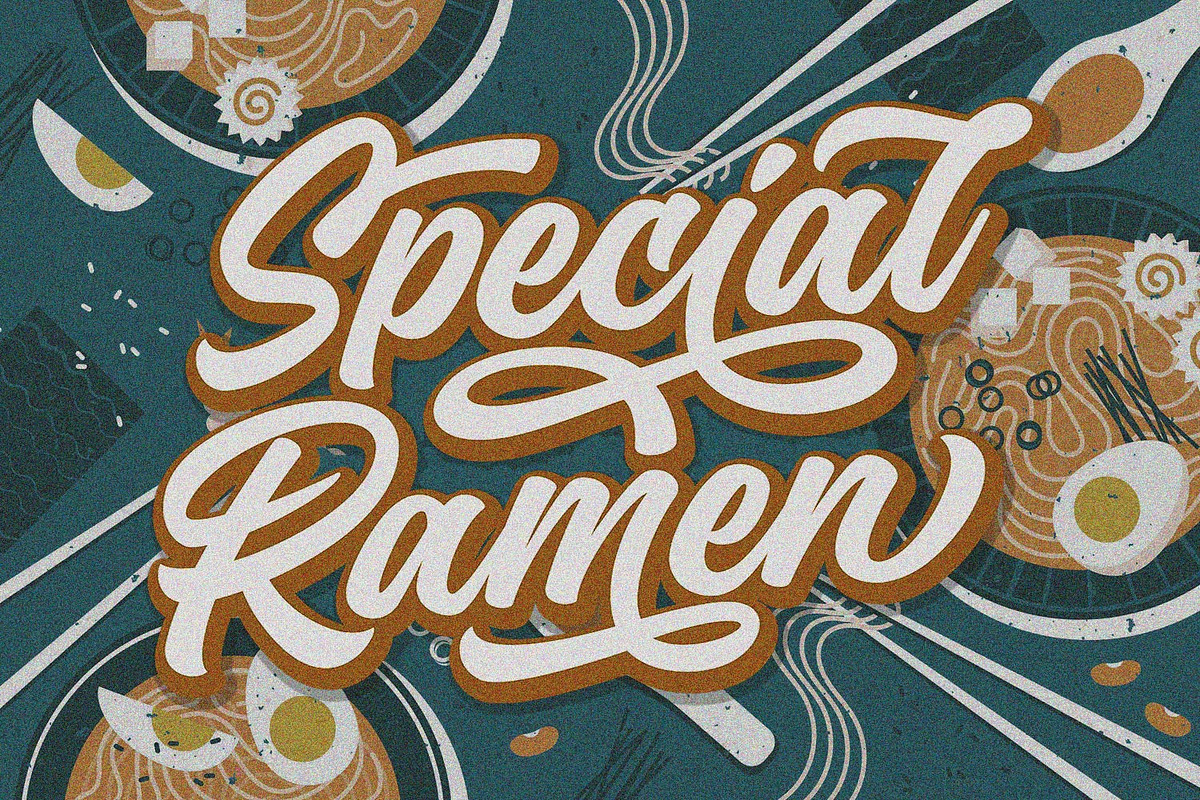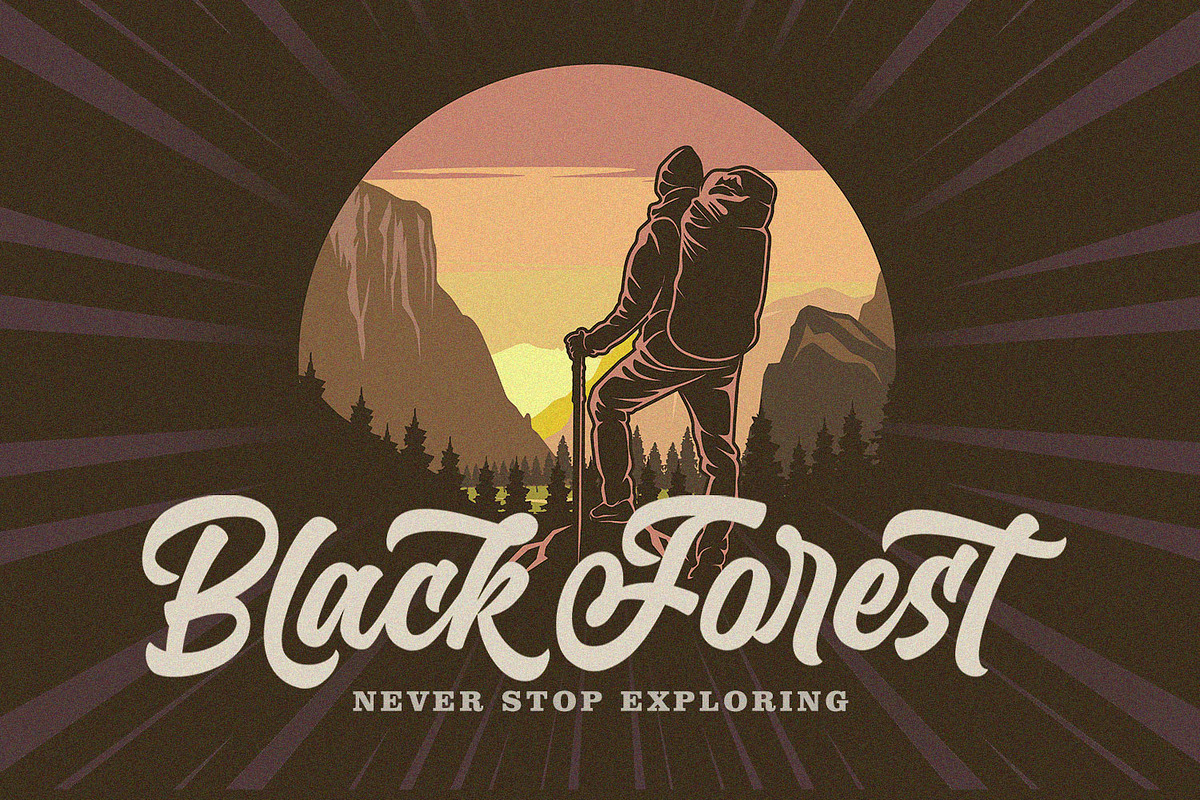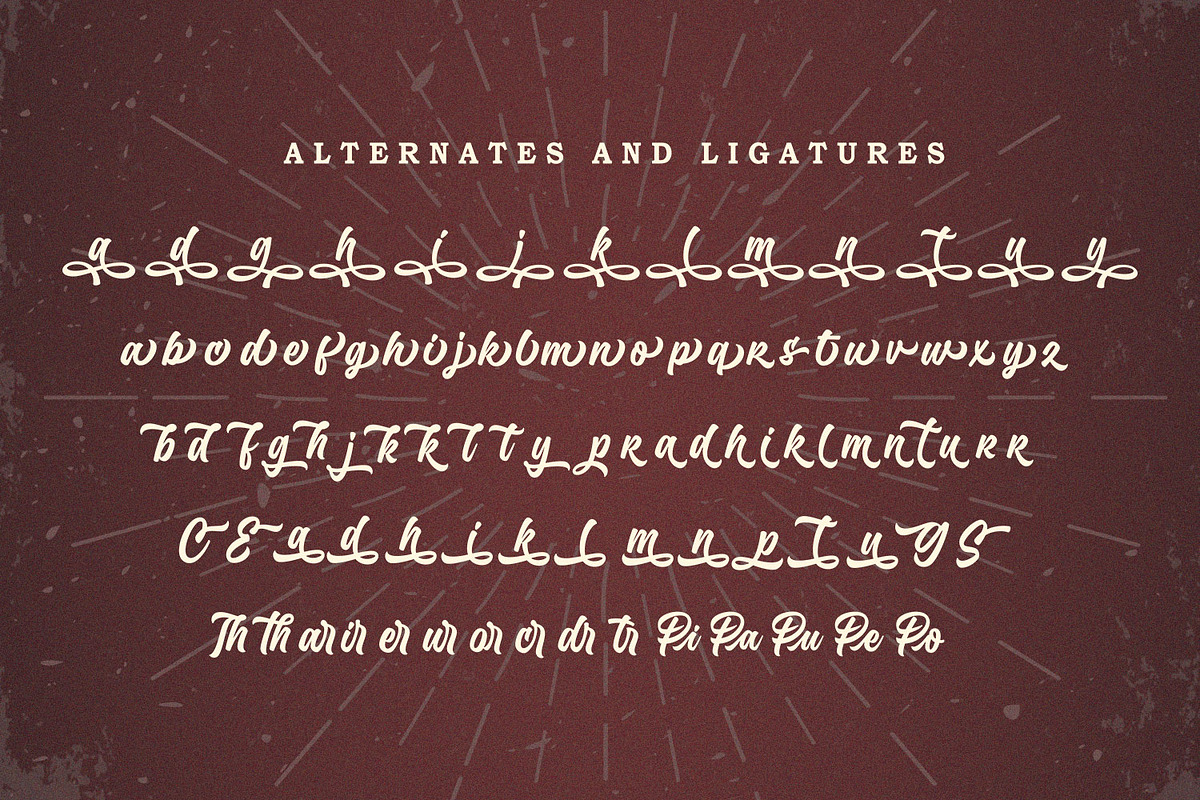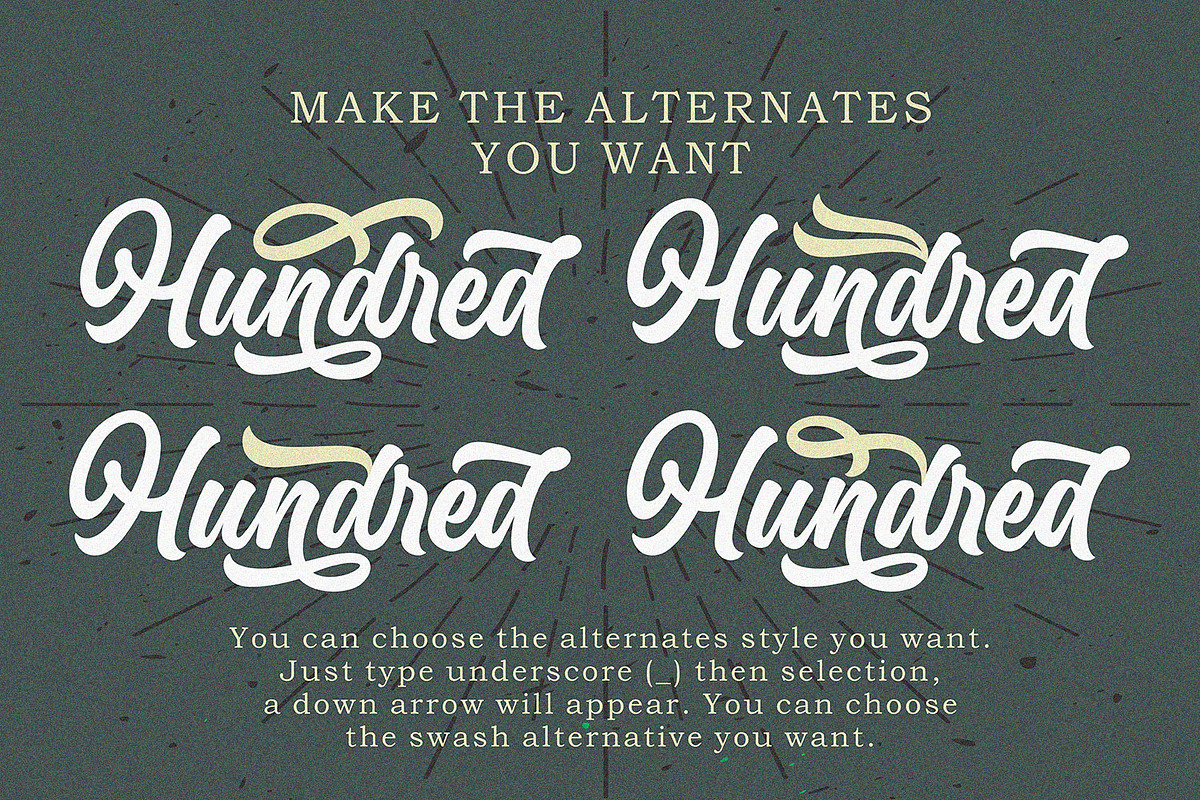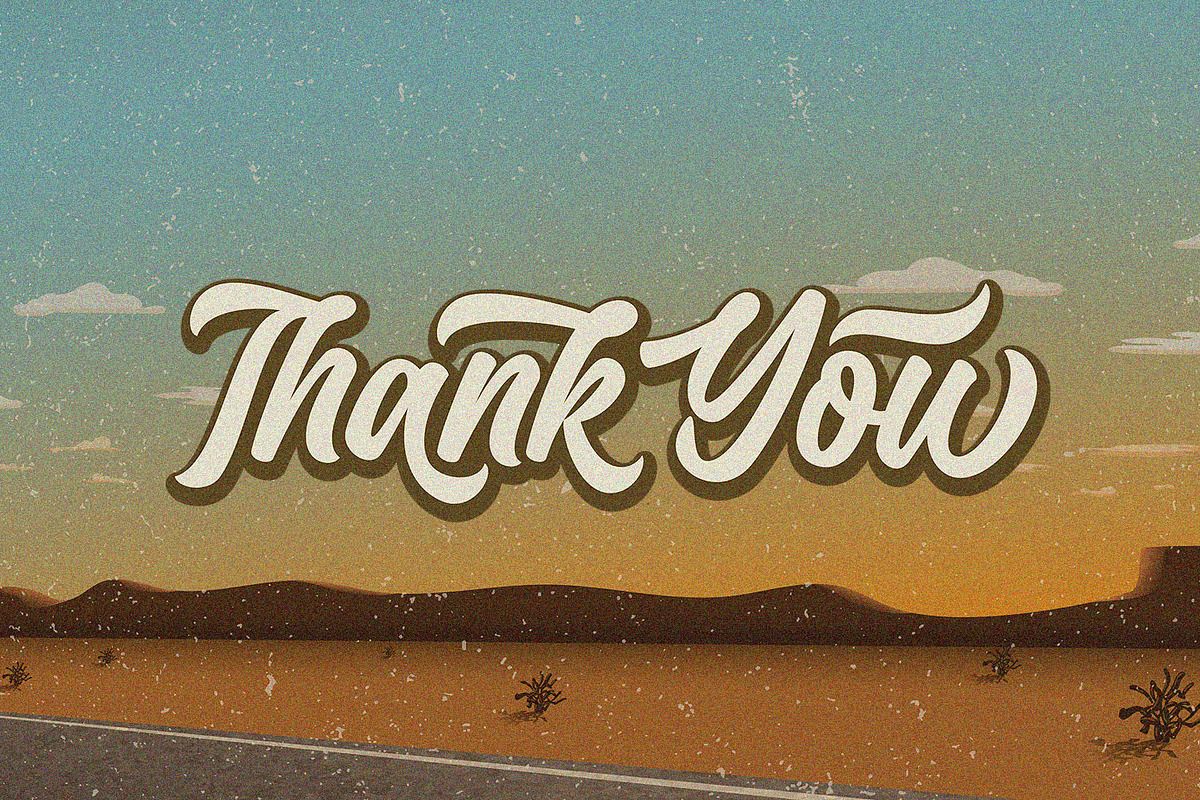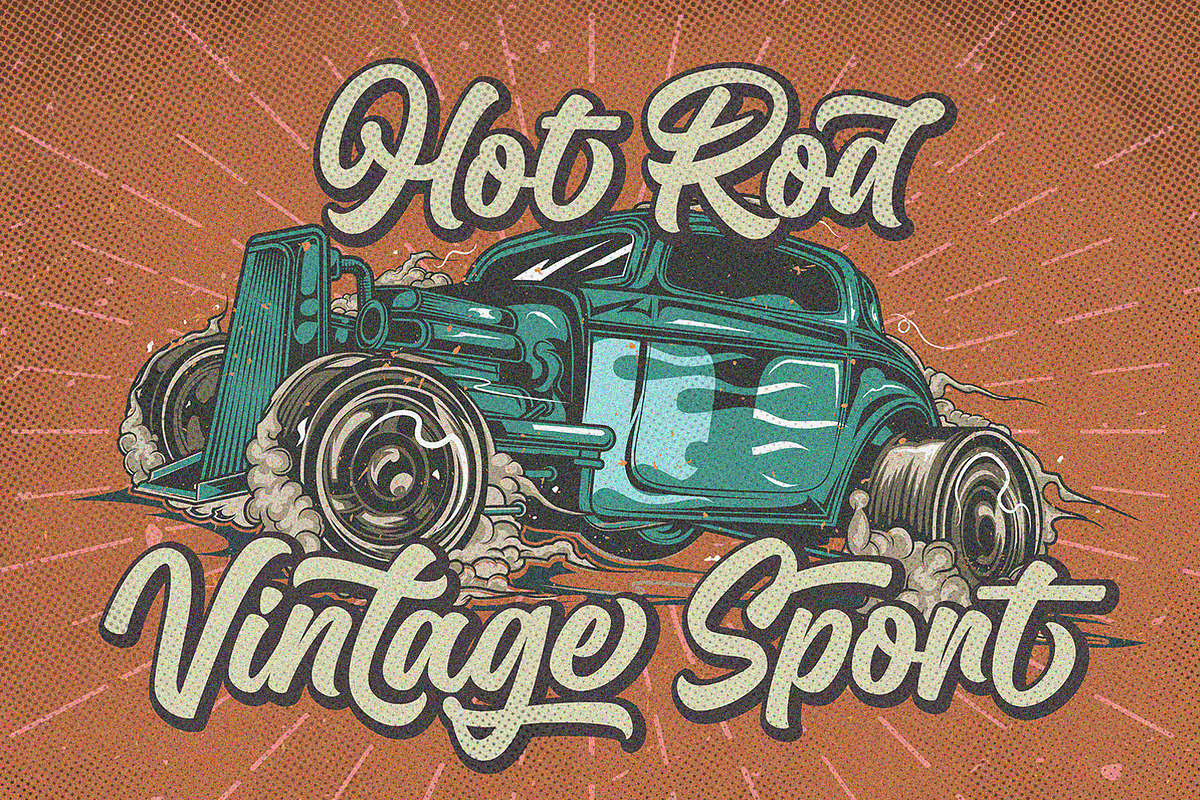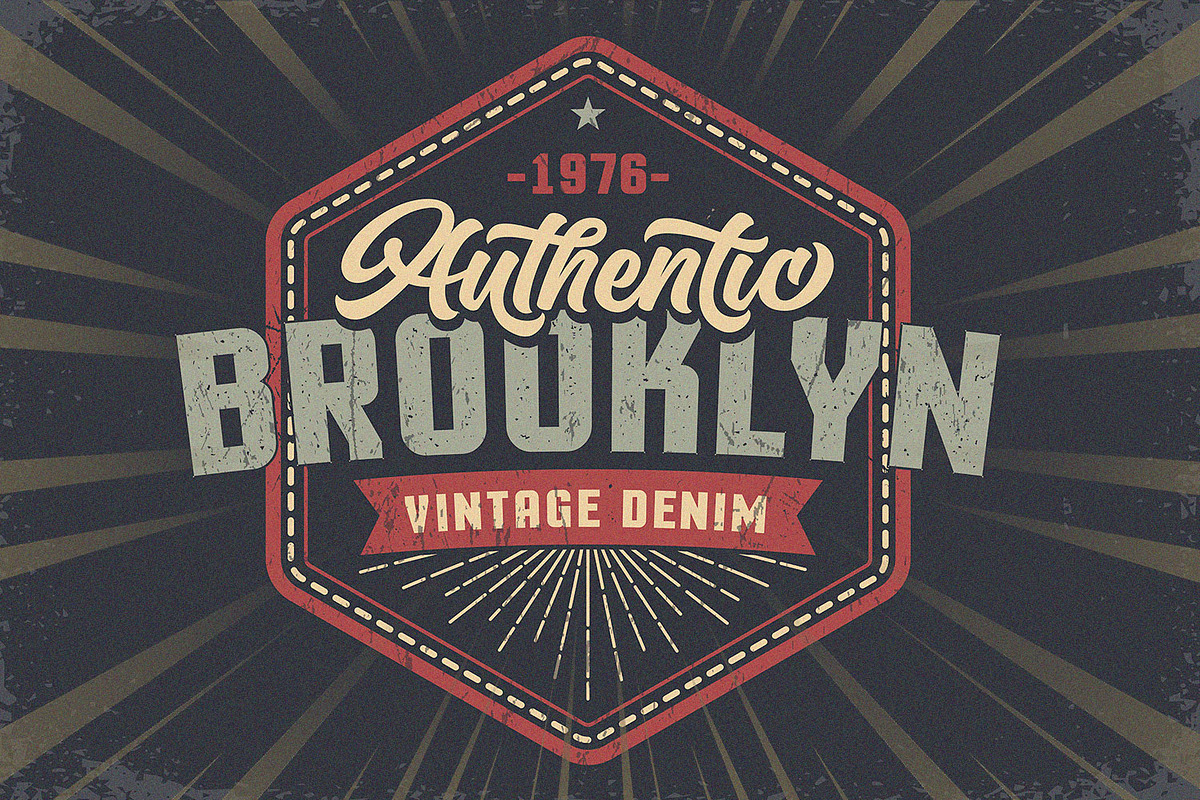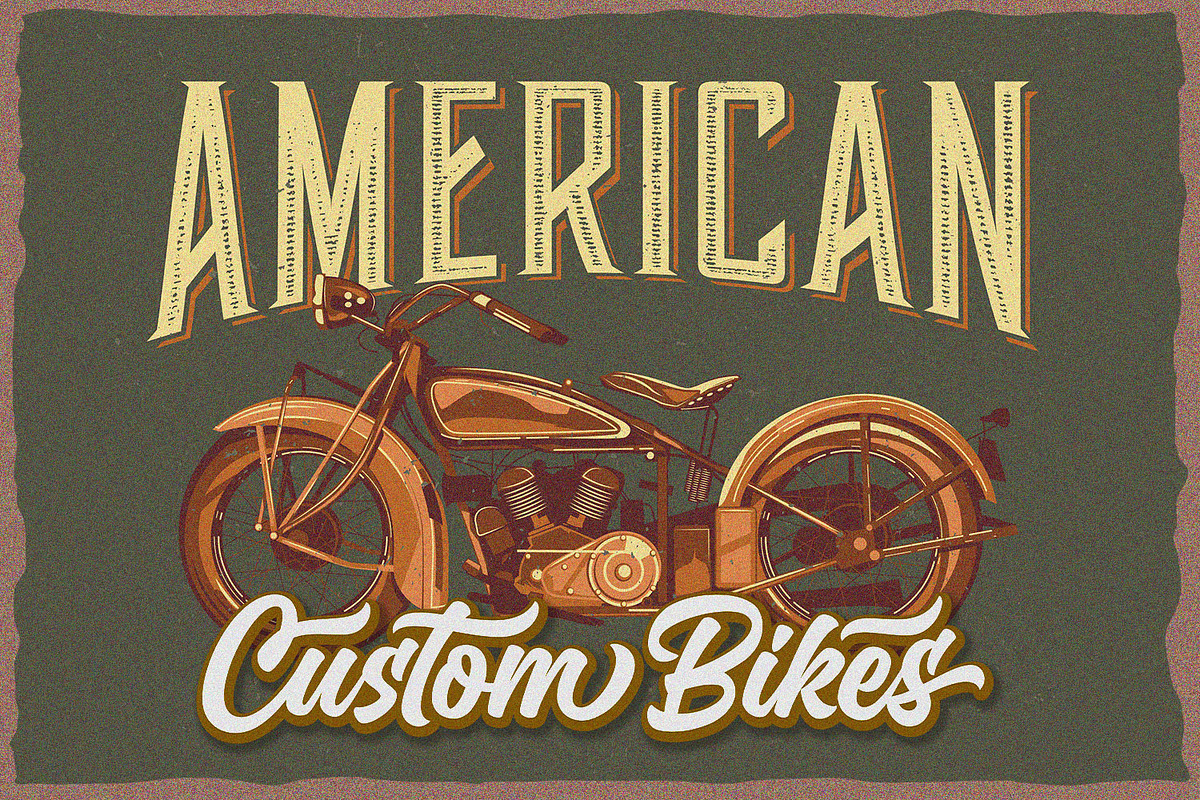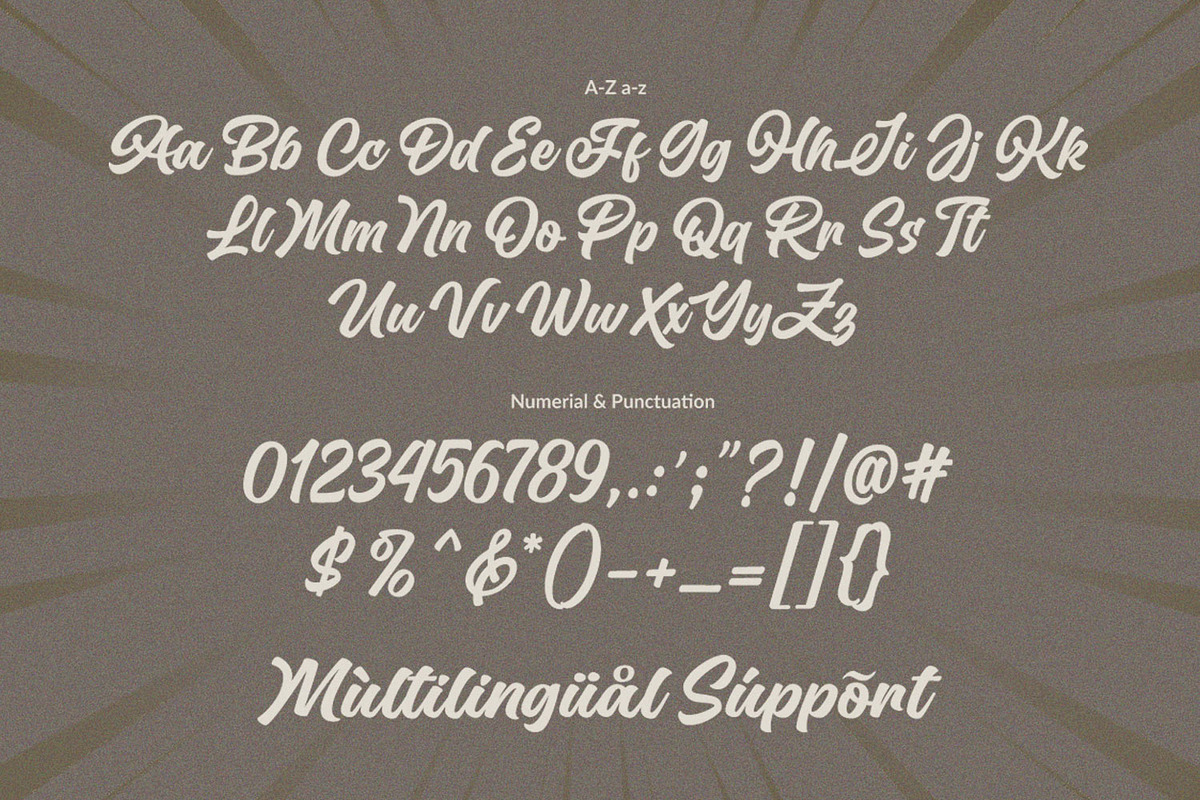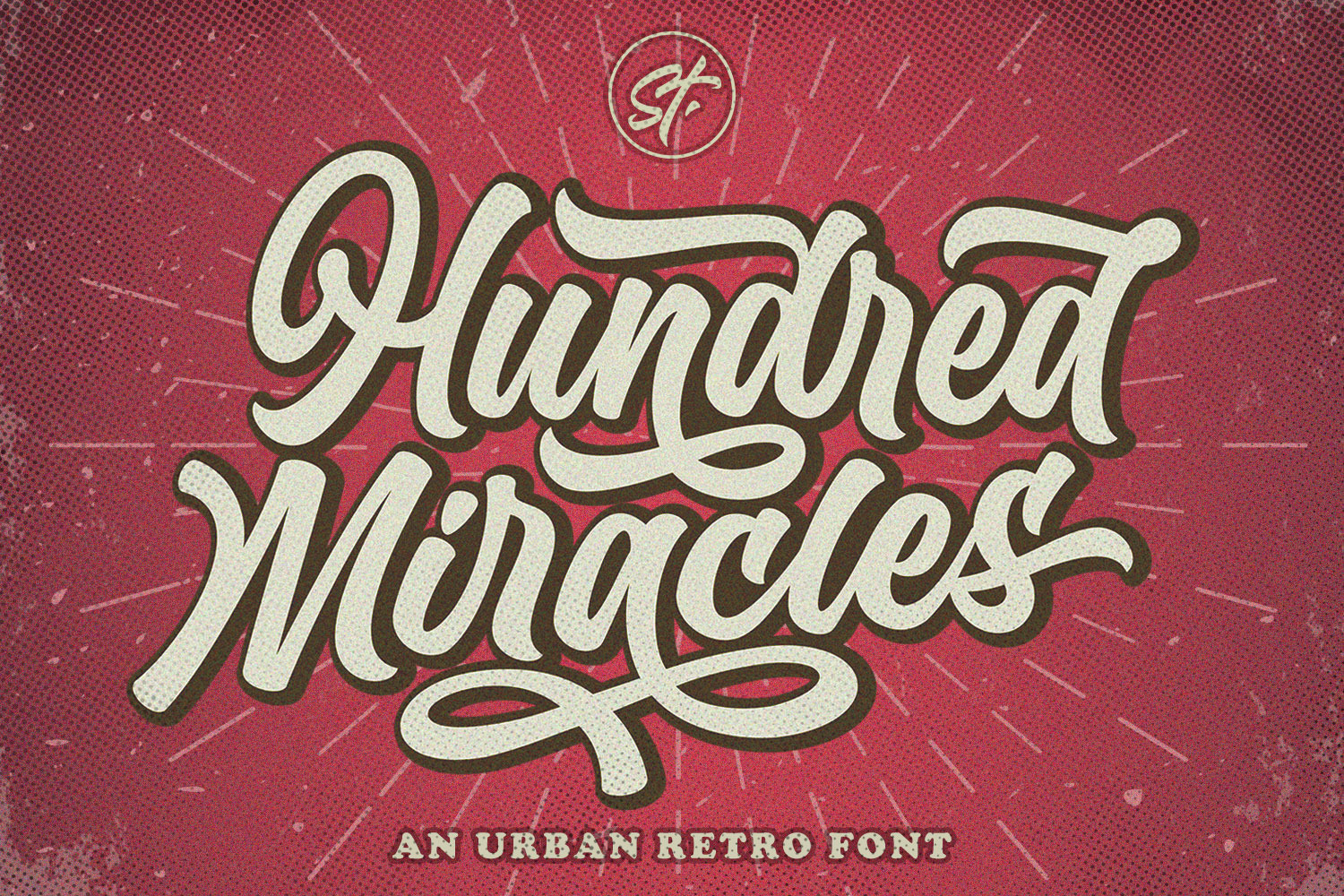
Hundred Miracles - Urban Restro Font
The Hundred Miracles Font is an urban retro font with the style like a logotype lettering. was created to help you designing logotype or lettering style for your Brand or your clients, and you also can use it for designing all of the graphic stuff such as badge, sign, packaging, headline, title, T-shirt/apparel, Poster, etc.
The Hundred Miracles was designed for eny characters such as strong, confidence, dynamic, readable, Energic, dynamic, etc.